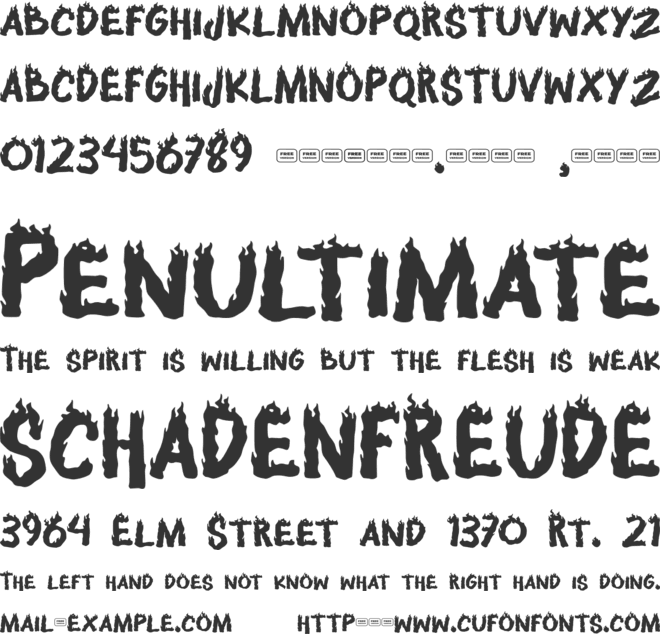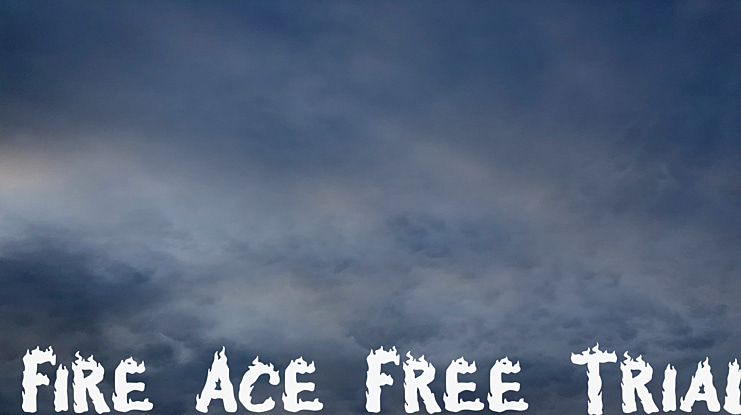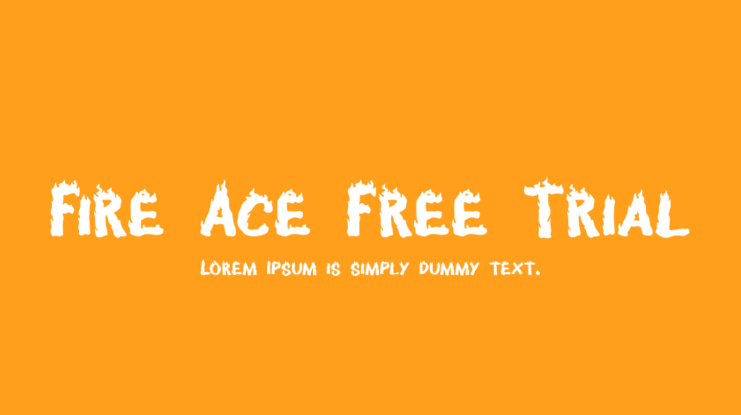
Fire Ace Free Trial Font
Fire Ace is a fiery display font with incredibly hot feel.Fire Ace has a fiery effect, it’s the perfect font for giving any design a fiery and dangerous feel, spices brand, speedy racing burnout effect or maybe spicy delicious food!Full Version Download Here :https://typefactory.co/product/fire-ace-a-fiery-display-font/https://www.creativefabrica.com/product/fire-ace/